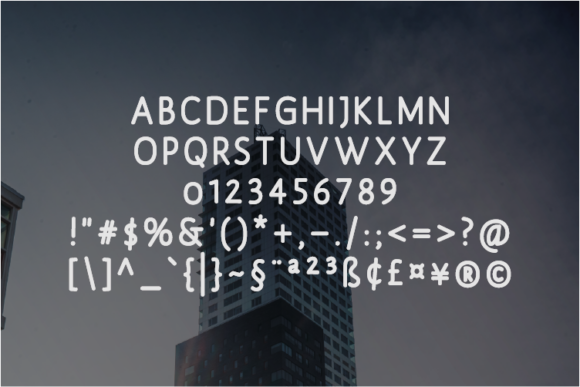
Introduction to Partakes Font
Partakes is a cute and strong sans serif font.
With its neat and beautiful arrangement of letters, this typeface will look outstanding in both formal and non-formal designs .
Partakes Font offers exceptional quality and versatility, making it a valuable addition to your design toolkit. Whether you’re creating for personal projects or commercial use, Partakes Font delivers professional results.